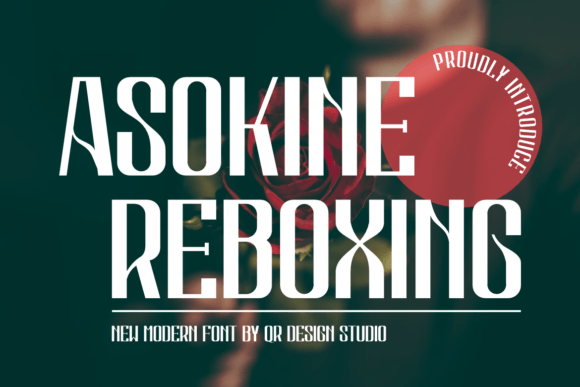
Introducing Asokine Reboxing Font: The Ultimate Bold and Modern Display Font
Are you looking for a font that exudes confidence and strength? Look no further than Asokine Reboxing Font, a bold and modern all-caps display font that is sure to take your designs to the next level. With its sleek and minimalist sans-serif style, this font is perfect for headlines, titles, and branding.
Key Features of Asokine Reboxing Font
- Bold and Modern Design: Asokine Reboxing Font boasts a bold and modern design that is sure to grab attention. Its clean lines and sharp edges make it perfect for eye-catching designs in both print and digital formats.
- All-Caps Display Font: This font is specifically designed as an all-caps display font, making it ideal for headlines, titles, and branding where you want to make a statement.
- Sleek and Minimalist Sans-Serif Style: The font’s sleek and minimalist sans-serif style gives it a professional and sophisticated look that is perfect for a wide range of design applications.
- Uppercase Letters Convey Strength and Confidence: The uppercase letters in Asokine Reboxing Font convey strength and confidence, making it perfect for designs where you want to make a bold statement.
Design Applications for Asokine Reboxing Font
Asokine Reboxing Font is a versatile font that can be used in a wide range of design applications, including:
- Headlines and Titles: Use Asokine Reboxing Font to create bold and eye-catching headlines and titles that grab attention.
- Branding and Logo Design: The font’s bold and modern design makes it perfect for branding and logo design where you want to create a strong and memorable impression.
- Print Design: Asokine Reboxing Font is perfect for print design applications such as brochures, posters, and business cards.
- Digital Design: The font is also suitable for digital design applications such as website headers, social media graphics, and digital advertising.
Benefits of Using Asokine Reboxing Font
There are several benefits to using Asokine Reboxing Font in your designs, including:
- Increased Visibility: The font’s bold and modern design ensures that your message gets noticed and remembered.
- Improved Brand Recognition: Asokine Reboxing Font can help you create a strong and memorable brand identity that sets you apart from the competition.
- Versatility: The font’s versatility makes it suitable for a wide range of design applications, from print to digital.
- Professional Look: The font’s sleek and minimalist sans-serif style gives your designs a professional and sophisticated look.
Tips for Using Asokine Reboxing Font
Here are some tips for using Asokine Reboxing Font effectively in your designs:
- Use it for Headlines and Titles: Asokine Reboxing Font is perfect for headlines and titles where you want to grab attention.
- Pair it with Other Fonts: The font can be paired with other fonts to create a unique and visually appealing design.
- Experiment with Colors and Textures: Don’t be afraid to experiment with different colors and textures to add depth and interest to your design.
- Keep it Simple: Remember to keep your design simple and focused to ensure that the font remains the focal point.
In conclusion, Asokine Reboxing Font is a bold and modern all-caps display font that is perfect for headlines, titles, and branding. Its sleek and minimalist sans-serif style, combined with its clean lines and sharp edges, make it ideal for eye-catching designs in both print and digital formats. With its versatility, professional look, and increased visibility, Asokine Reboxing Font is a great addition to any designer’s font library.